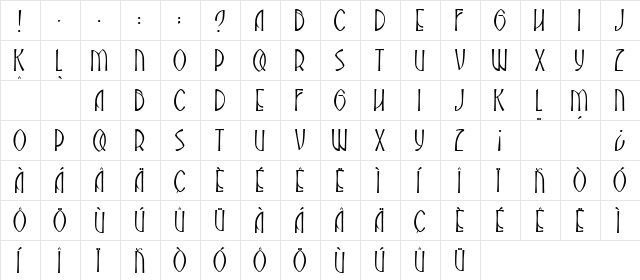
JMH Abadesa Regular
Design Context for JMH Abadesa Typeface
JMH Abadesa is a composed and adaptable typeface that performs quietly and consistently across a wide range of design contexts.